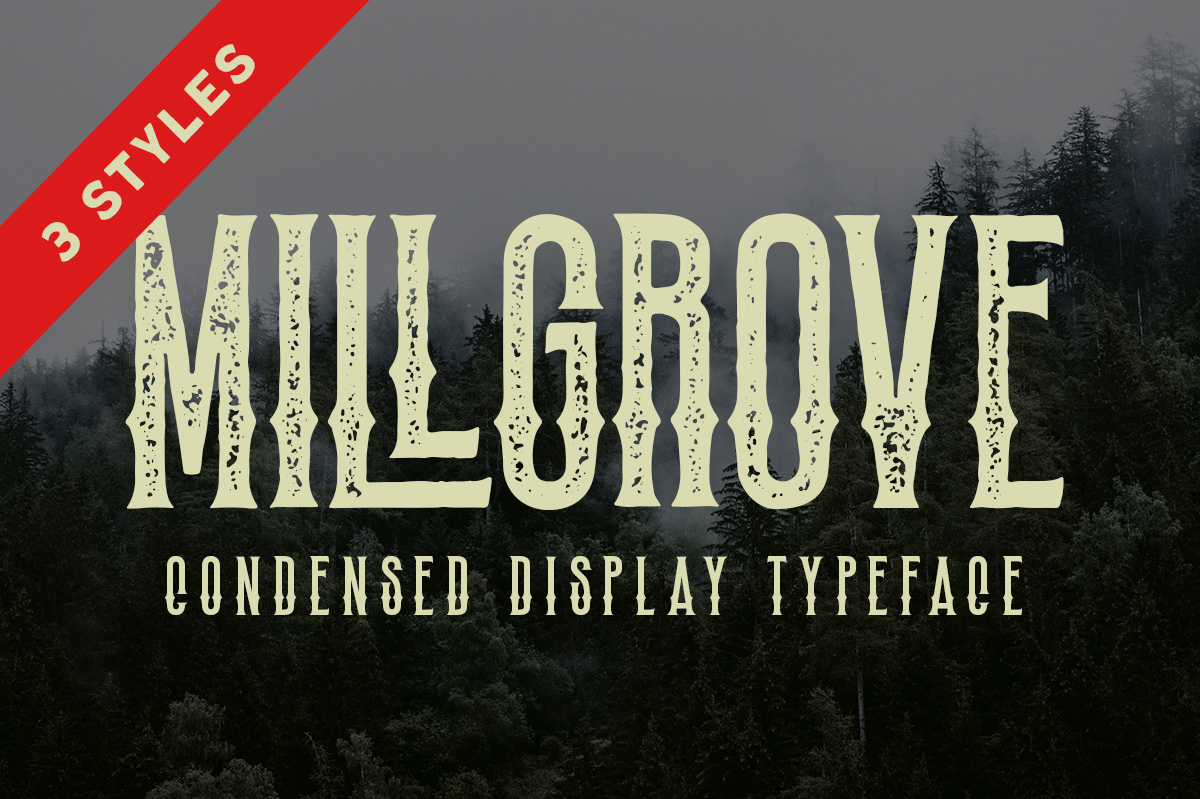
Millgrove Font
This rustic and authentic typeface is perfect for countryside farmhouse branding, artisanal mill products, traditional bakery signage, organic food packaging, heritage lumber companies, rural tourism marketing, country estate logos, farm-to-table restaurant menus, and agricultural business materials that require a genuine, pastoral aesthetic.
Millgrove Font brings excitement to design projects with its charming rustic character and authentic countryside appeal that captures the essence of traditional rural craftsmanship. The font features weathered letterforms with natural imperfections that evoke the timeless quality of old mill signage and farmhouse typography. Its pastoral charm and honest simplicity make it an exceptional choice for brands that want to communicate authenticity, tradition, and connection to the land in their visual storytelling.
The Millgrove Font family includes various rustic styles: Regular, Bold, Light, Weathered, Distressed, Condensed, and Vintage versions. Each variant maintains the font's distinctive countryside character while providing designers with creative flexibility for different agricultural and heritage applications. The family also features farm-inspired ornaments, traditional decorative elements, rustic borders, and countryside symbols that enhance the overall pastoral aesthetic.
When searching for authentic rural typography solutions, Millgrove Font Free Download offers an unmatched combination of rustic charm and professional reliability. Professional designers favor this font for its ability to instantly transport audiences to peaceful countryside settings while maintaining excellent readability across various traditional contexts. The typeface works beautifully from handcrafted product labels to large-scale farm signage, preserving its authentic character at every application.
The font's rustic excellence includes carefully crafted weathering effects, natural texture variations, and authentic aging characteristics that mimic traditional hand-painted farm signage. Whether you're designing for agricultural businesses, heritage brands, or rural hospitality venues, this font delivers the genuine countryside touch that connects modern audiences with traditional values and pastoral simplicity.
For creative professionals working with agricultural and heritage markets, this font represents a valuable resource for creating authentic rural communications. Its versatile nature allows it to adapt to both modern farm operations and traditional countryside establishments while maintaining its distinctive rustic personality. Download this exceptional typeface today and discover how authentic rural typography can transform your projects into memorable countryside experiences that celebrate agricultural heritage and pastoral beauty.